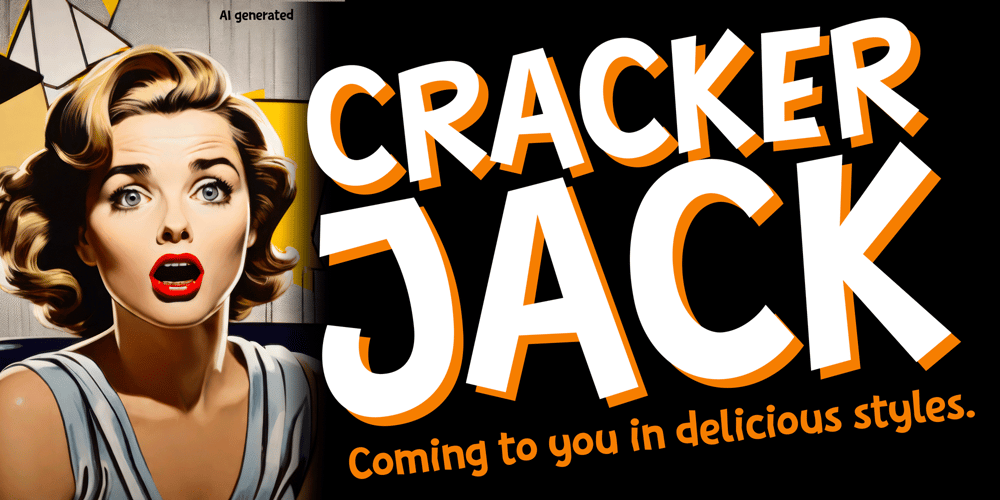
Crackerjack Font Family was designed by Wolfram Pleger and published by PleasureFonts. Crackerjack contains 6 styles and family package options. Have you noticed those little cracks in Crackerjack? Look out for the low cap „i“ or the figure „1“. Crackerjack’s letters are also in the mood for dancing. Look at the letters „b“ or „o“ – they are in some kind of limbo. All these fun little details make Crackerjack an unique typeface with fun elements, without compromising readability. Even in small sizes. Yes, it is sans serif, but also has a handwritten touch. Playful, funny, extraordinary and not too serious. Crackerjack provides you with over 390 glyphs in 3 styles.